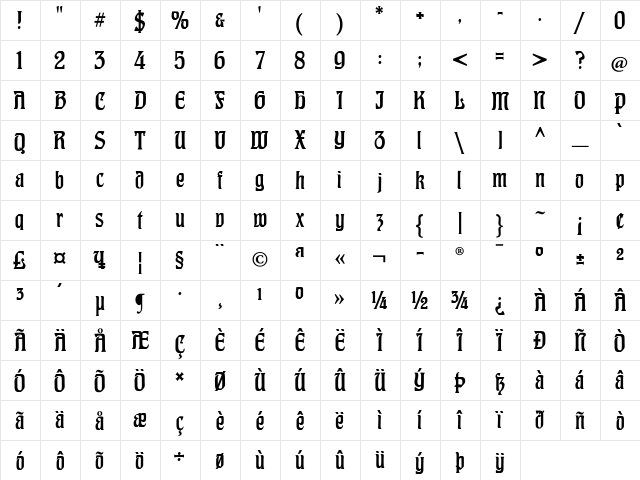
CAT Hohenzollern Regular
| Foundry | Peter Wiegel |
| Designer | Peter Wiegel |
Design Context for CAT Hohenzollern Typeface
CAT Hohenzollern takes a measured approach to typography — its balanced proportions and neutral character make it a reliable workhorse for both digital and print work.